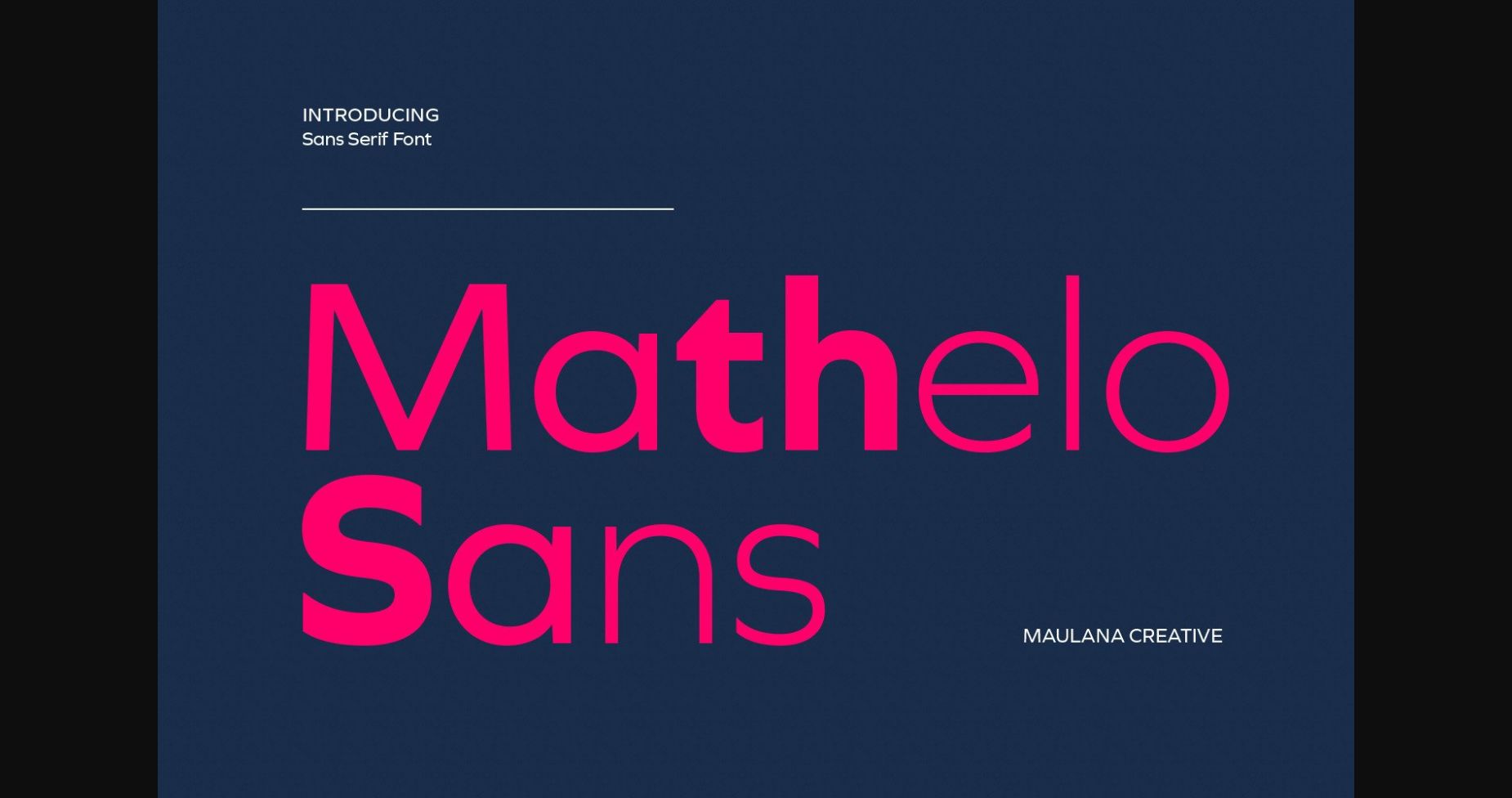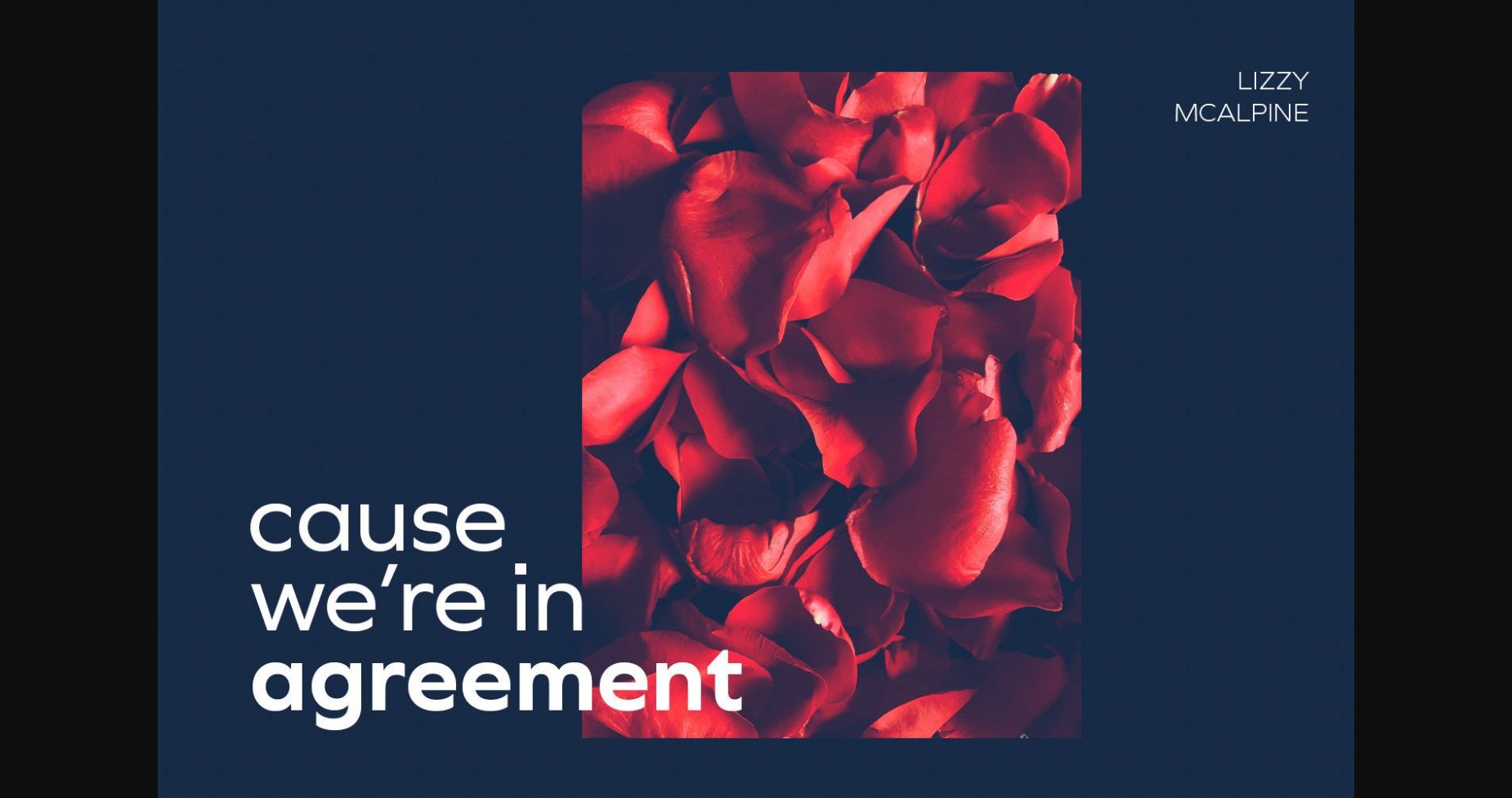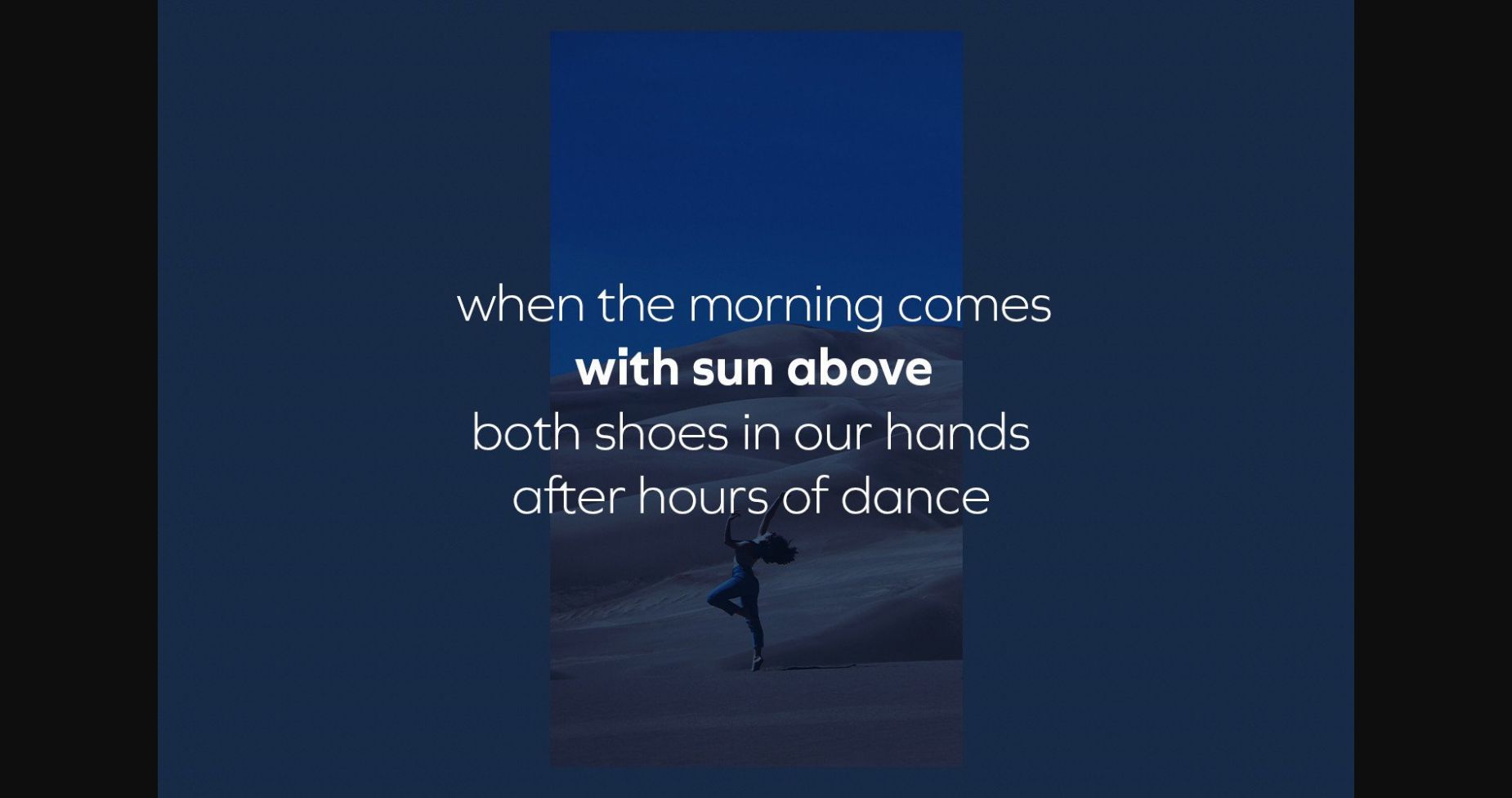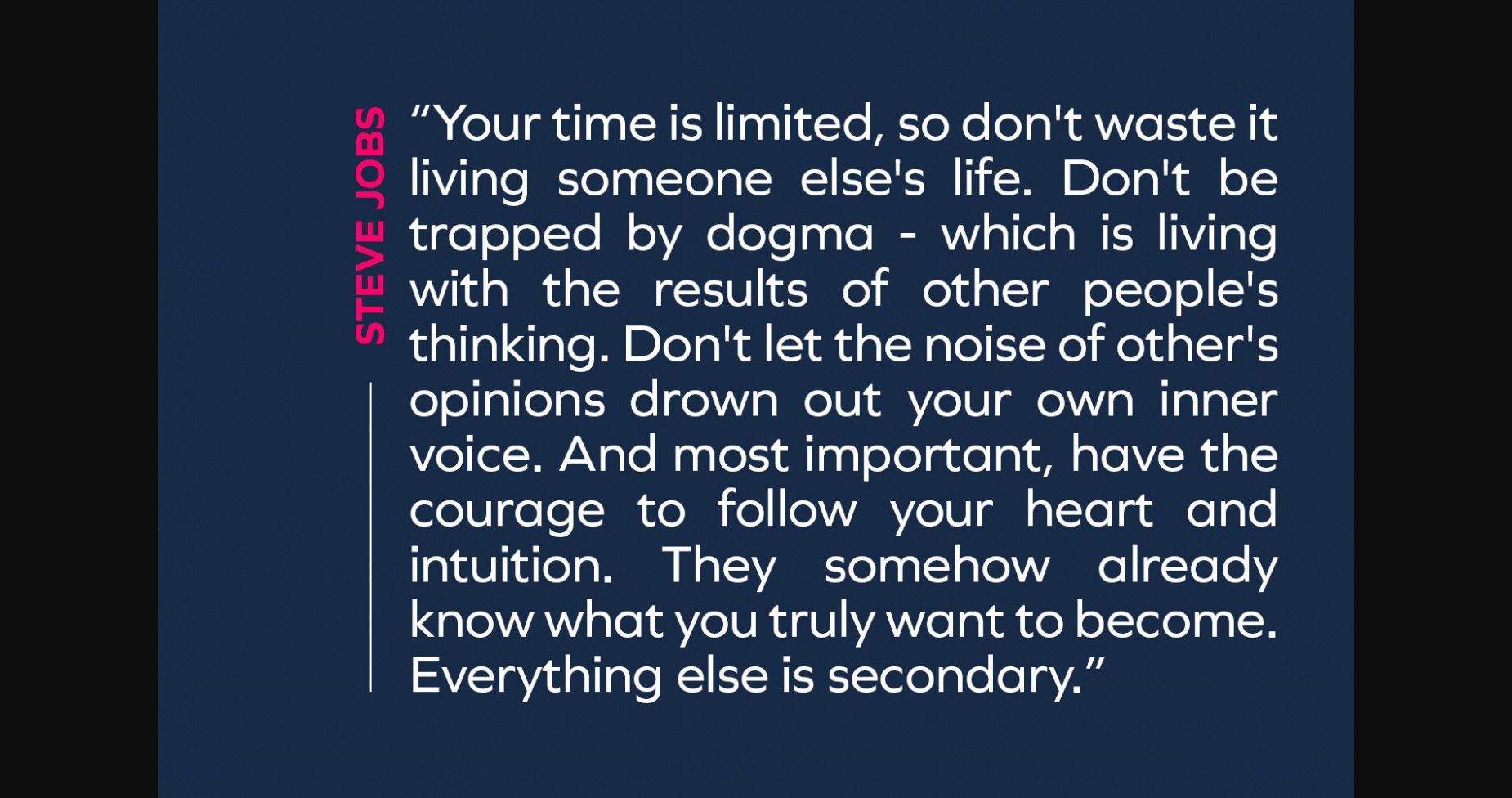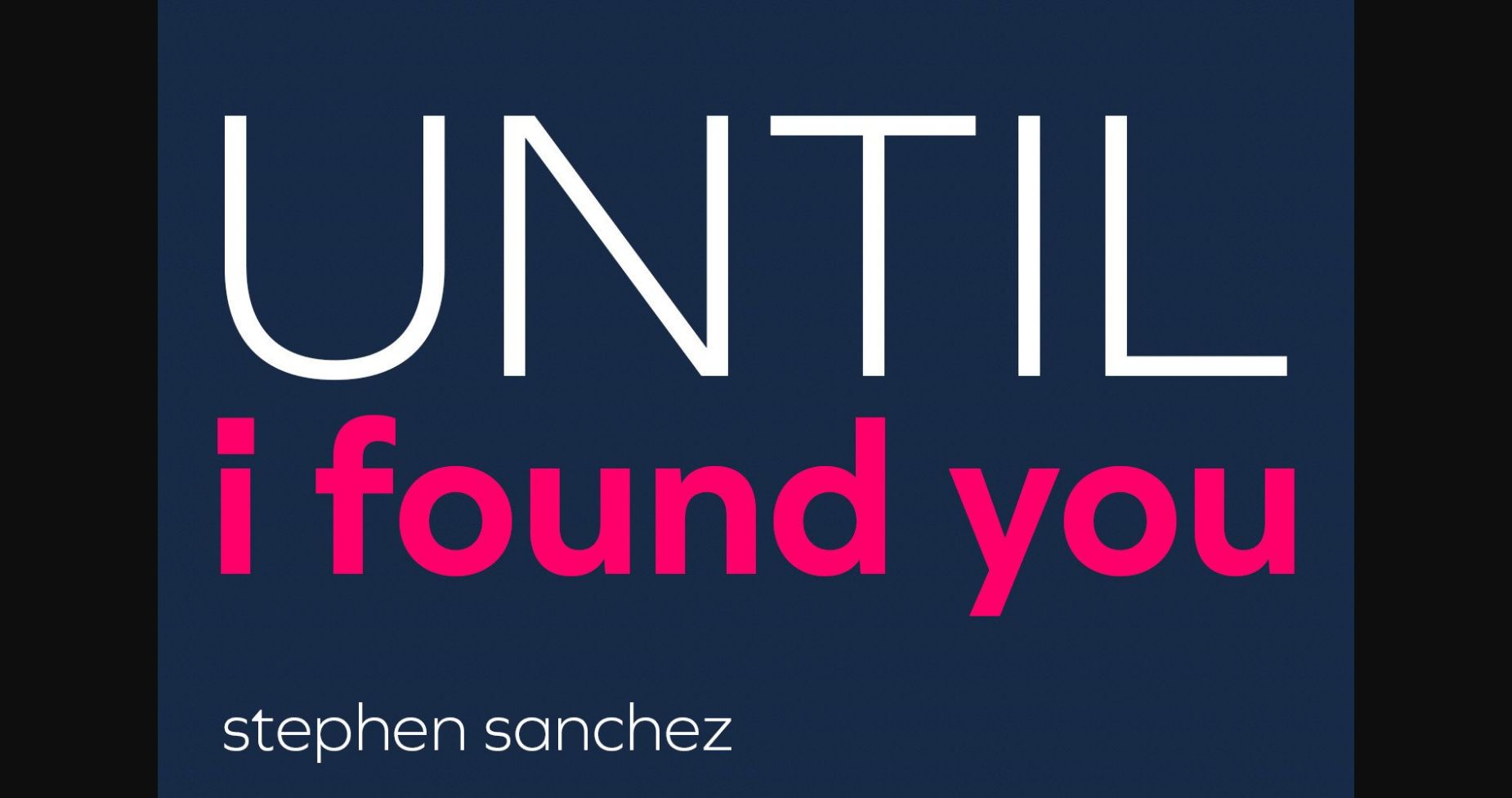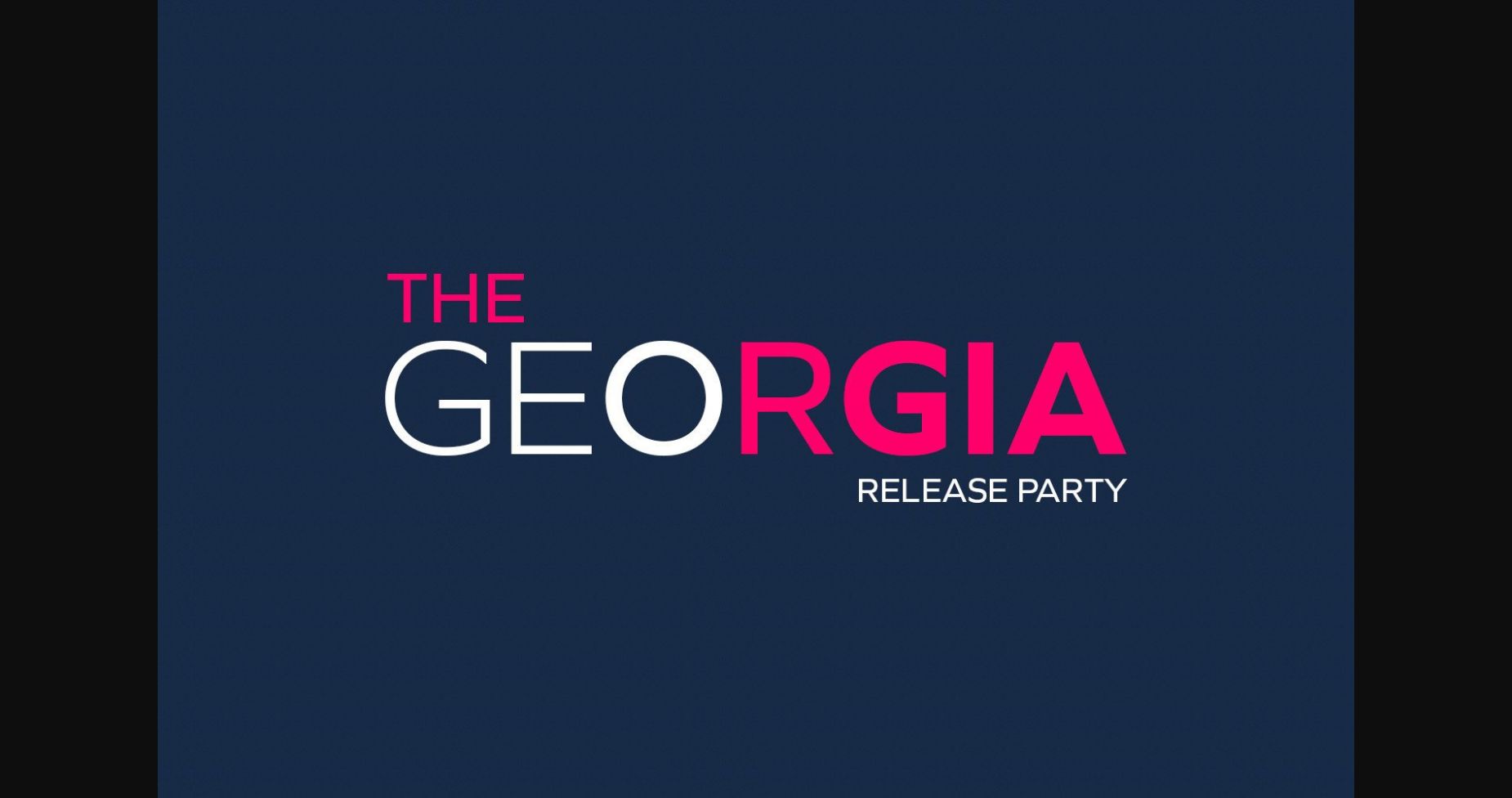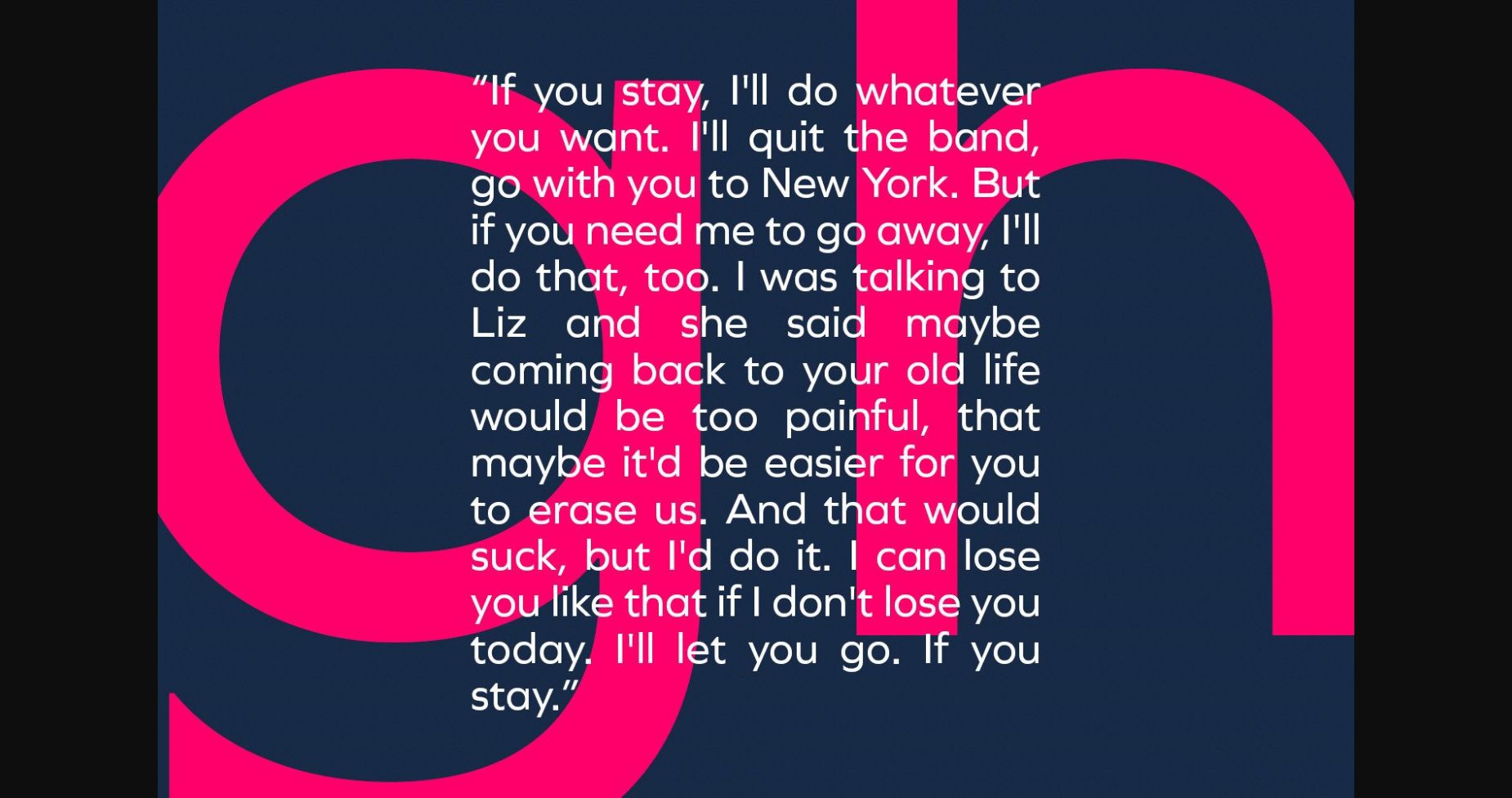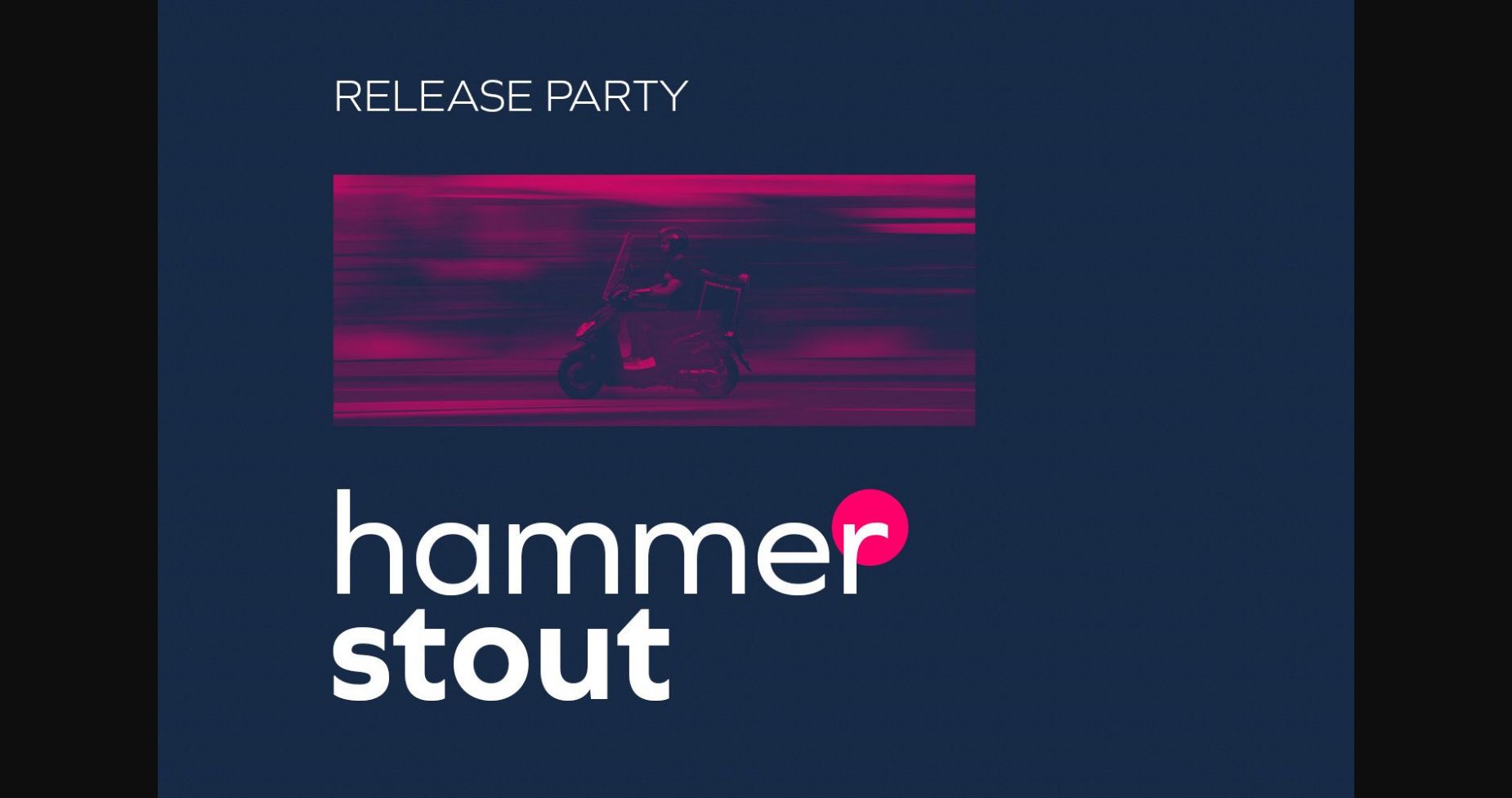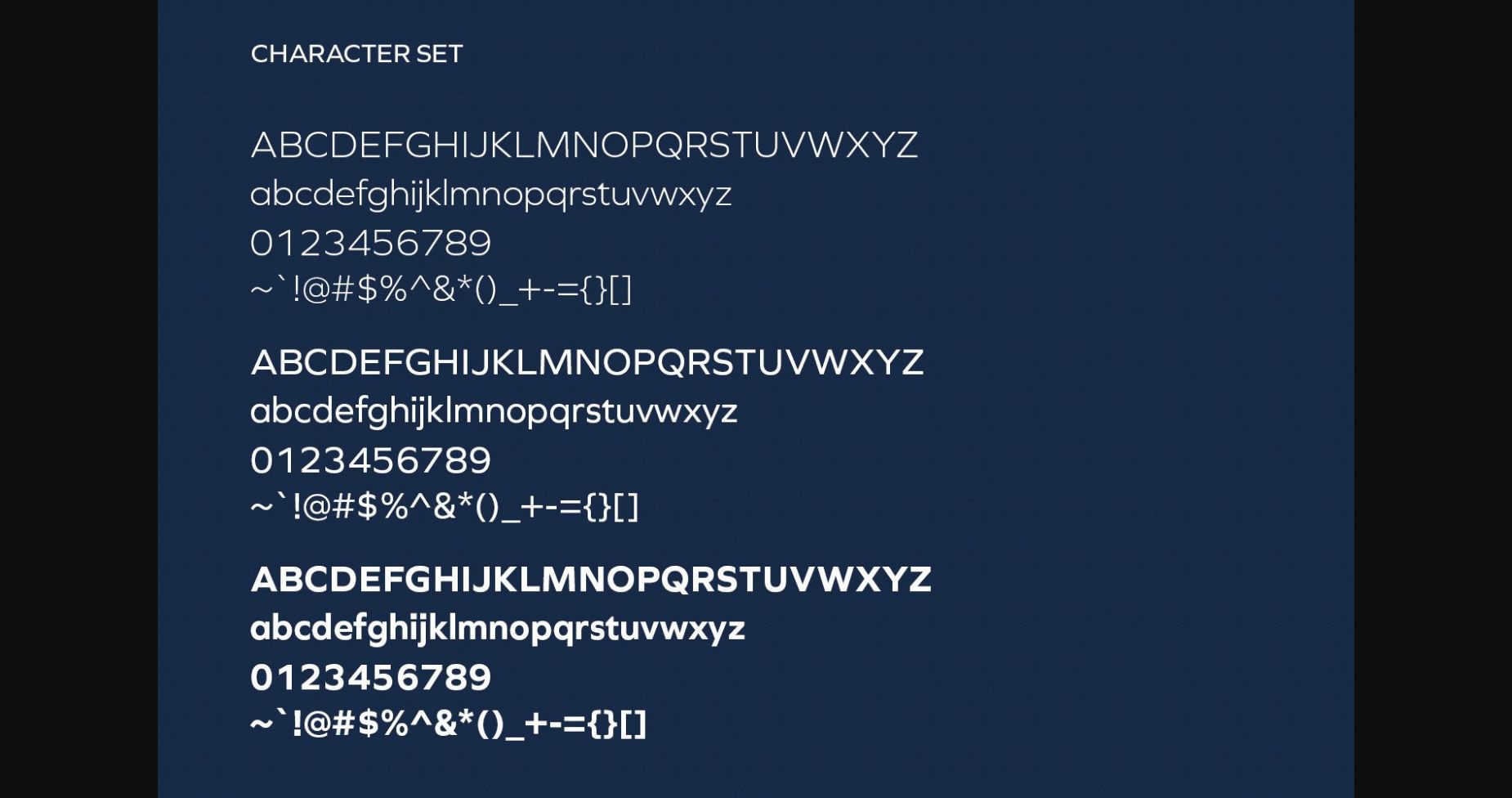
HomeSans Serif FontsMathelo Font Sans Serif Fonts Mathelo Font FacebookTwitterPinterestWhatsApp 1 of 11 ... Mathelo Font Poster 2... Mathelo Font Poster 3... Mathelo Font Poster 4... Mathelo Font Poster 5... Mathelo Font Poster 6... Mathelo Font Poster 7... Mathelo Font Poster 8... Mathelo Font Poster 9... Mathelo Font Poster 10... Mathelo Font Poster 11... About Mathelo Font Mathelo is a modern and cool sans serif font. It has beautiful and well-balanced characters and as a result, it matches a wide pool of designs. Add it to your most creative ideas and notice how it makes them come alive! DOWNLOAD NOW People also explored Farmhouse Font Dreame Patter Font Glanden Happy Planner Font Handmade Font KillingOni Font Sinffonia Vallencia Font Faction 167 0 TagsMatheloMathelo Font Previous articleAeruans FontNext articleStoner Font LEAVE A REPLY Cancel reply Comment: Please enter your comment! Name:* Please enter your name here Email:* You have entered an incorrect email address! Please enter your email address here Website: Save my name, email, and website in this browser for the next time I comment. Personal Use Free Houstonville Personal Use Free Read more about this font Doriath Personal Use Free Read more about this font Anders Personal Use Free Read more about this font Mueband Personal Use Free Read more about this font BLOG Using Fonts in Digital Marketing: Tips to Strengthen Your Brand Identity In the realm of digital marketing, every visual element plays a crucial role in shaping a brand's identity, and fonts are no exception. The... Free Fonts Risk: Why Free Fonts Can Be Dangerous for Designers Best Fonts for T-Shirt Design – Top 2025 Picks Transform Your Website: Elevate Your Typography with 7 Best Web Font Generators